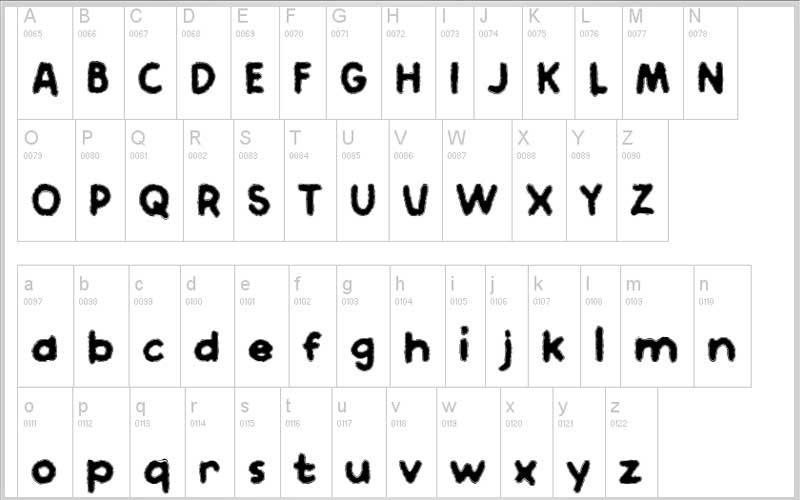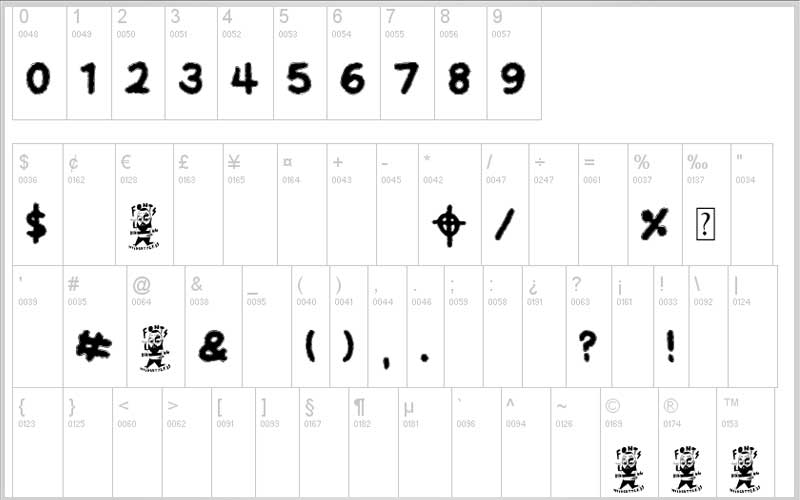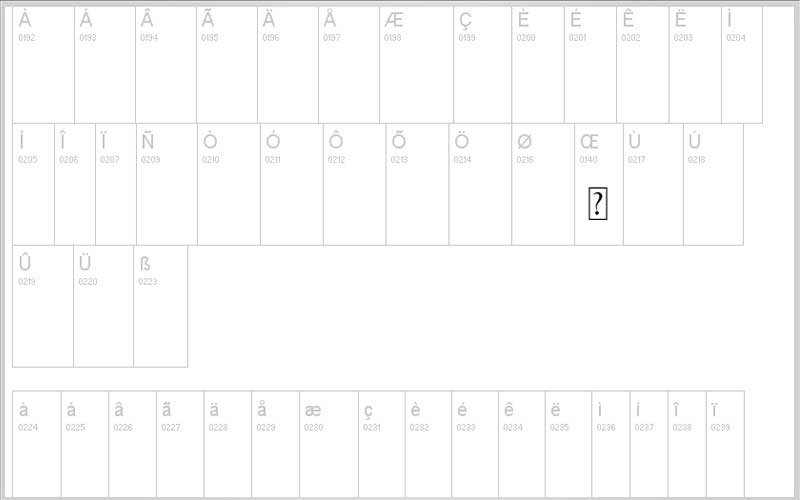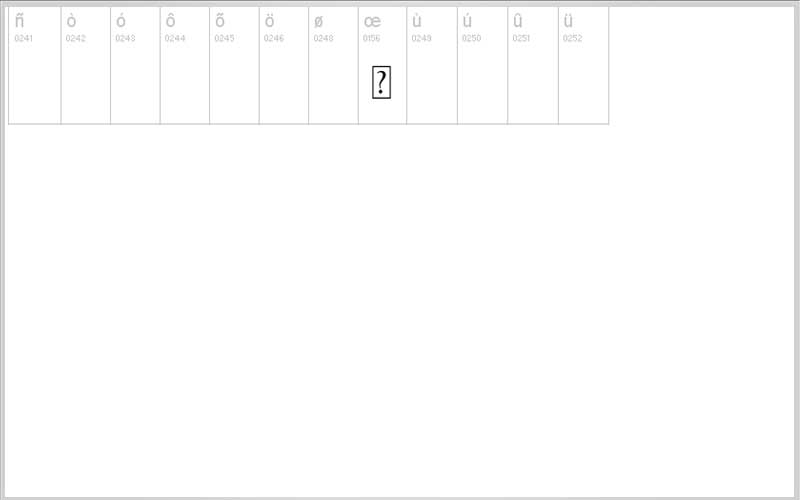
Bastardo is a high quality Eroded font that is designed by Woodcutter and is available for free download and personal use. The free version provides all uppercase and lowercase letters and a few special characters too.